Northern Design Festival is back – and this time, it's bringing its own typeface
Now in its third year, NDF returns to Lancaster this May with a people-first programme, a bespoke new typeface rooted in medieval history, and a billboard campaign asking big questions about northern creative identity.
There's a question the organisers of Northern Design Festival get asked every year: why Lancaster?
Running from 13–15 May 2026, NDF returns to Kanteena in Lancaster for its third edition – and what began as a grassroots gathering for creatives outside the capital has grown into one of the most community-led events on the design calendar: three days of talks, workshops and conversations.
This year's theme is Heritage, and the organisers have taken that seriously beyond the programme itself. In collaboration with type foundry F37, they've developed a bespoke typeface called Lancer – a name that carries a deliberate double meaning. It nods to Lancaster's medieval roots while referencing the word "freelancer", which traces back to knights who weren't bound to a single lord.
Lancer draws on traditional Blackletter forms but brings a geometric, contemporary construction to them... something that bridges the past and the present rather than getting too nostalgic. "We wanted the typeface to feel like a love letter to both the city and the wider creative community," the NDF directors explain. "It reflects where we've come from, but also the freedom and independence that define how many creatives work today."
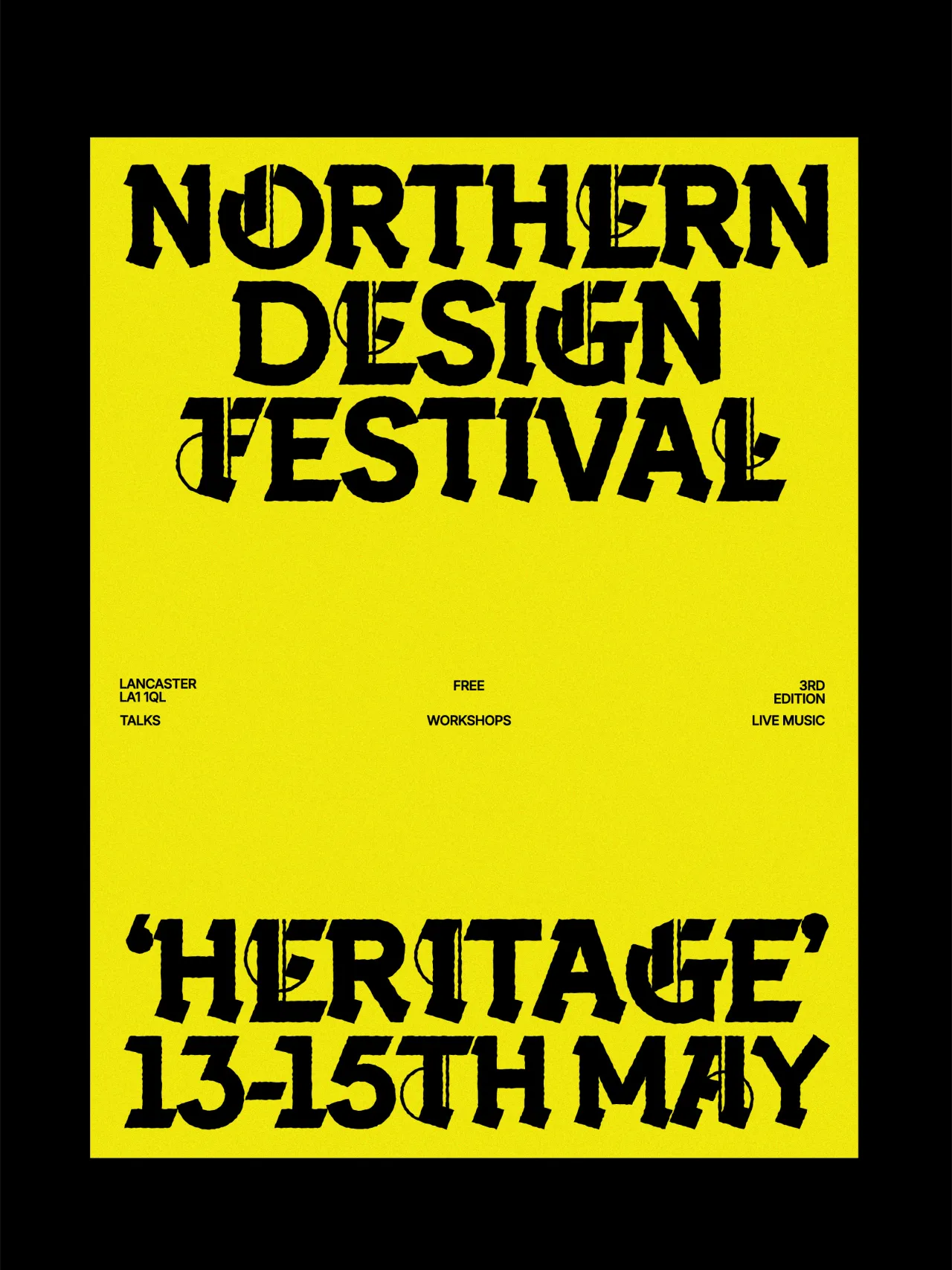
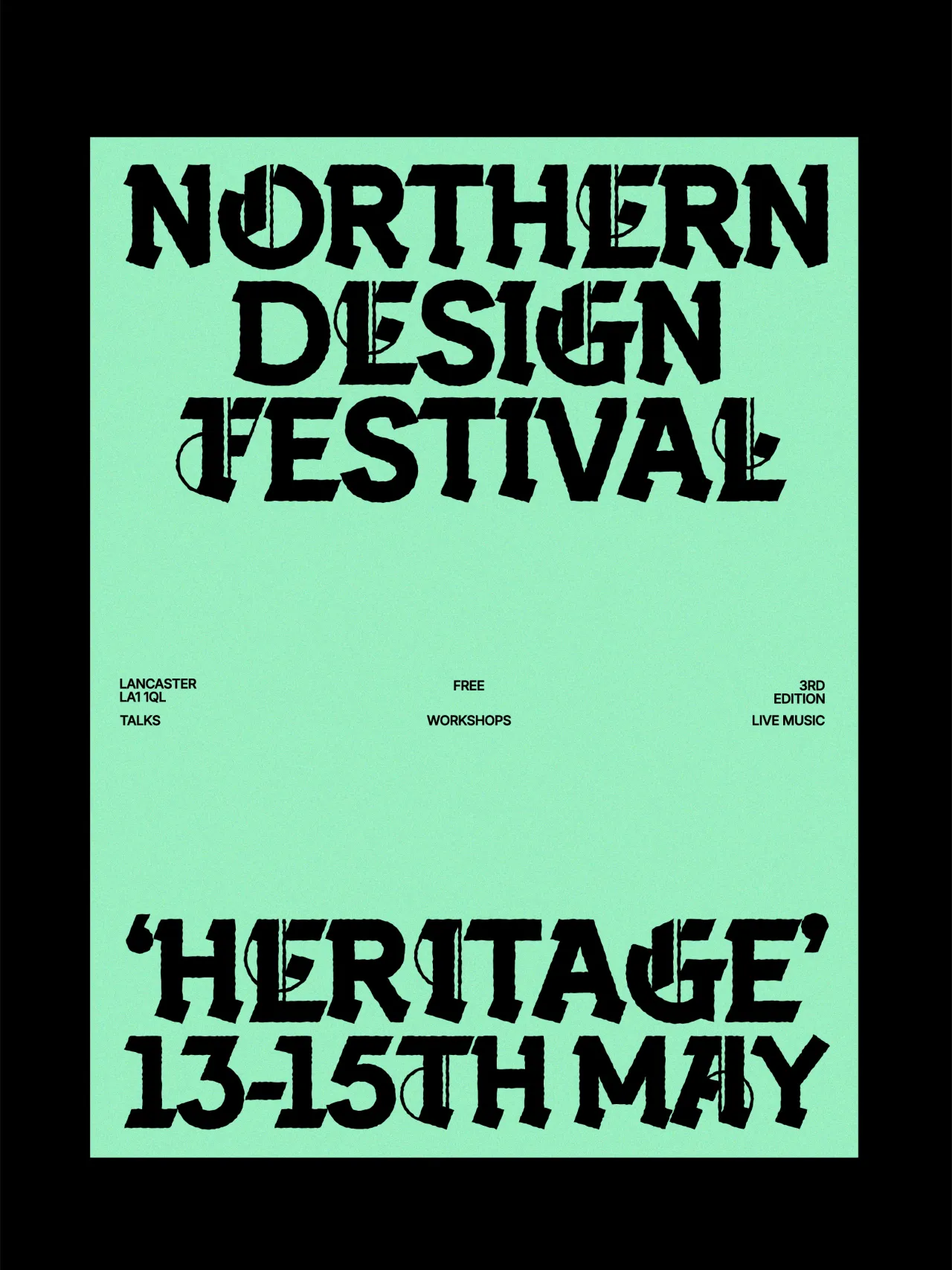
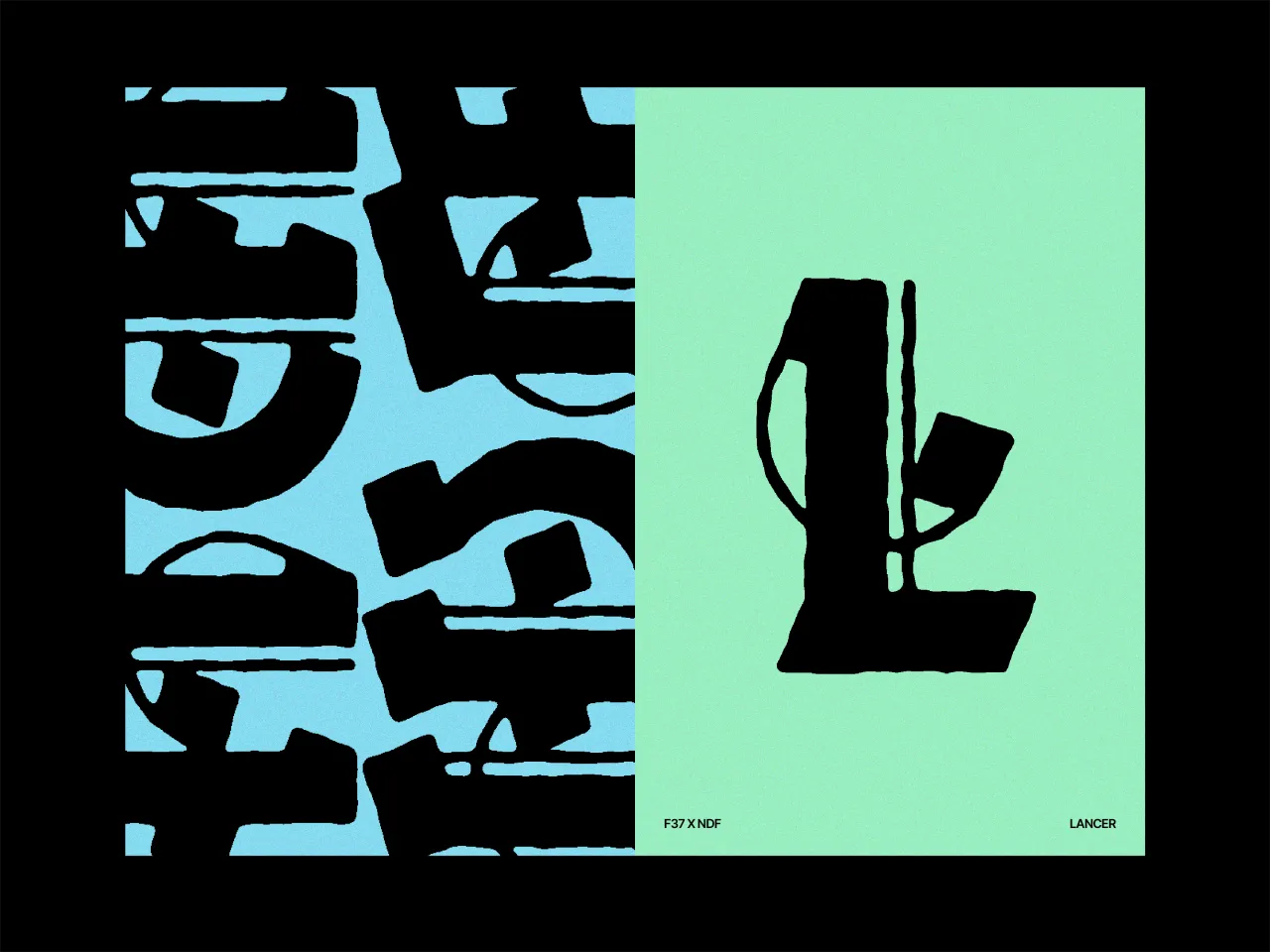
The identity extends into a billboard campaign with partner Open Media, appearing across Manchester, Liverpool and Newcastle. And rather than promoting speakers or ticket sales, the campaign focuses on something harder to pin down: the shared experience of leaving your hometown in search of opportunity and what that might mean for reframing your story.
What makes NDF tick is less the names on the bill and more the people who make it all happen. More than 30 volunteers help build the whole thing while working full-time jobs.
"From the beginning, the mission has been simple," says co-director Antonia Arbova. "We want to connect communities who believe in humanising our industry and ensuring that everyone has a fair opportunity to pursue what they love."
Co-director Niamh Cartwright adds: "Sometimes we all need a reminder that things can move forward and that we're not doing it alone."